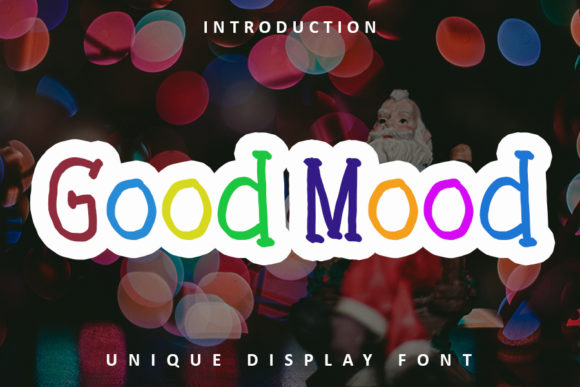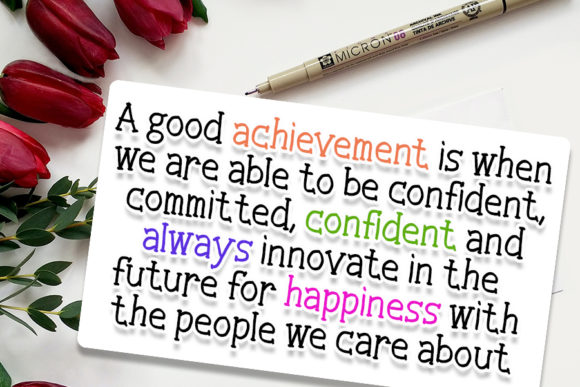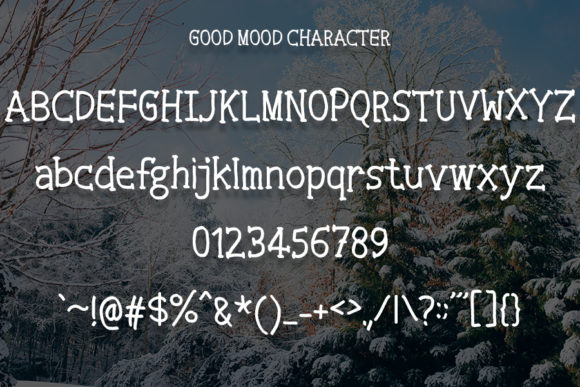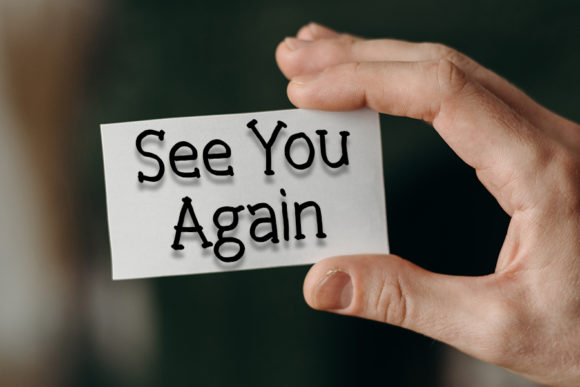
About Good Mood Font
Good Mood sounds like a wonderful font choice! A handwritten font with serif ornaments and uneven lines, Good Mood offers a unique and charming aesthetic. Its combination of handwritten elements with serif details adds a touch of elegance and whimsy to your designs.
Using Good Mood for crafts, designs, websites, teaching materials, and worksheets can bring a distinct and creative flair to your projects.
In crafting, Good Mood can enhance your creations with its handcrafted appeal. Whether you’re designing handmade cards, scrapbook pages, posters, or personalized gifts, this font’s handwritten style and serif ornaments can add a touch of elegance and uniqueness. Its uneven lines create a playful and artistic look that can make your crafts stand out.
For digital designs and websites, Good Mood can infuse your visuals with a sense of personality and creativity. It can be used for various digital projects such as logos, social media graphics, website headers, or blog designs. Its combination of handwritten elements and serif ornaments can create a visually appealing and memorable experience for your audience.
When it comes to teaching materials and worksheets, Good Mood can make the learning process more engaging and enjoyable. Its handwritten style can add a personal touch, making the content feel approachable and relatable. The serif ornaments can act as decorative elements, adding visual interest and making the materials visually appealing.
As with any font, it’s important to consider readability, especially for longer bodies of text. While Good Mood’s uneven lines and serif ornaments contribute to its unique charm, it’s advisable to use it primarily for headings, titles, or short phrases. For longer paragraphs or smaller text elements, pairing it with more legible and readable fonts can ensure clear communication.
In summary, Good Mood is a handwritten font with serif ornaments and uneven lines that brings a distinct and creative touch to your crafts, designs, websites, teaching materials, and worksheets. Embrace its handcrafted appeal and whimsical nature to add a sense of elegance and uniqueness to your projects. Enjoy incorporating Good Mood into your work and let your creativity shine!